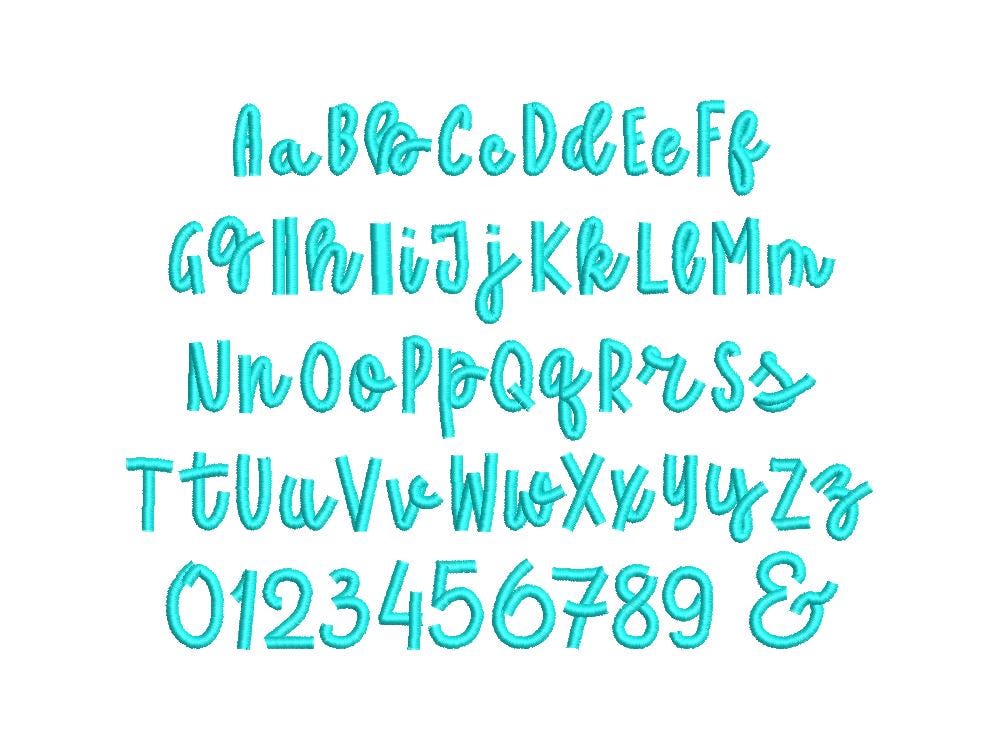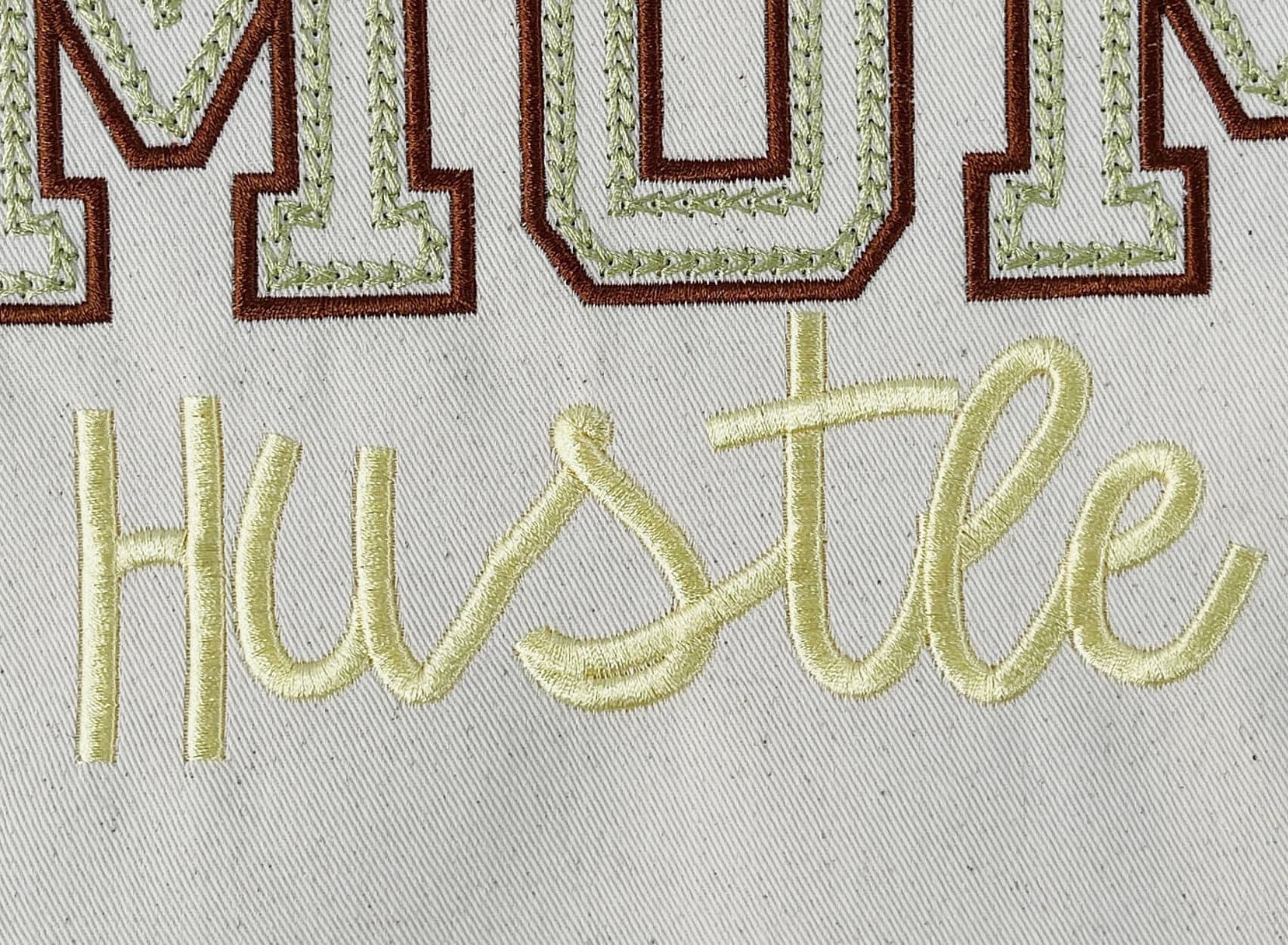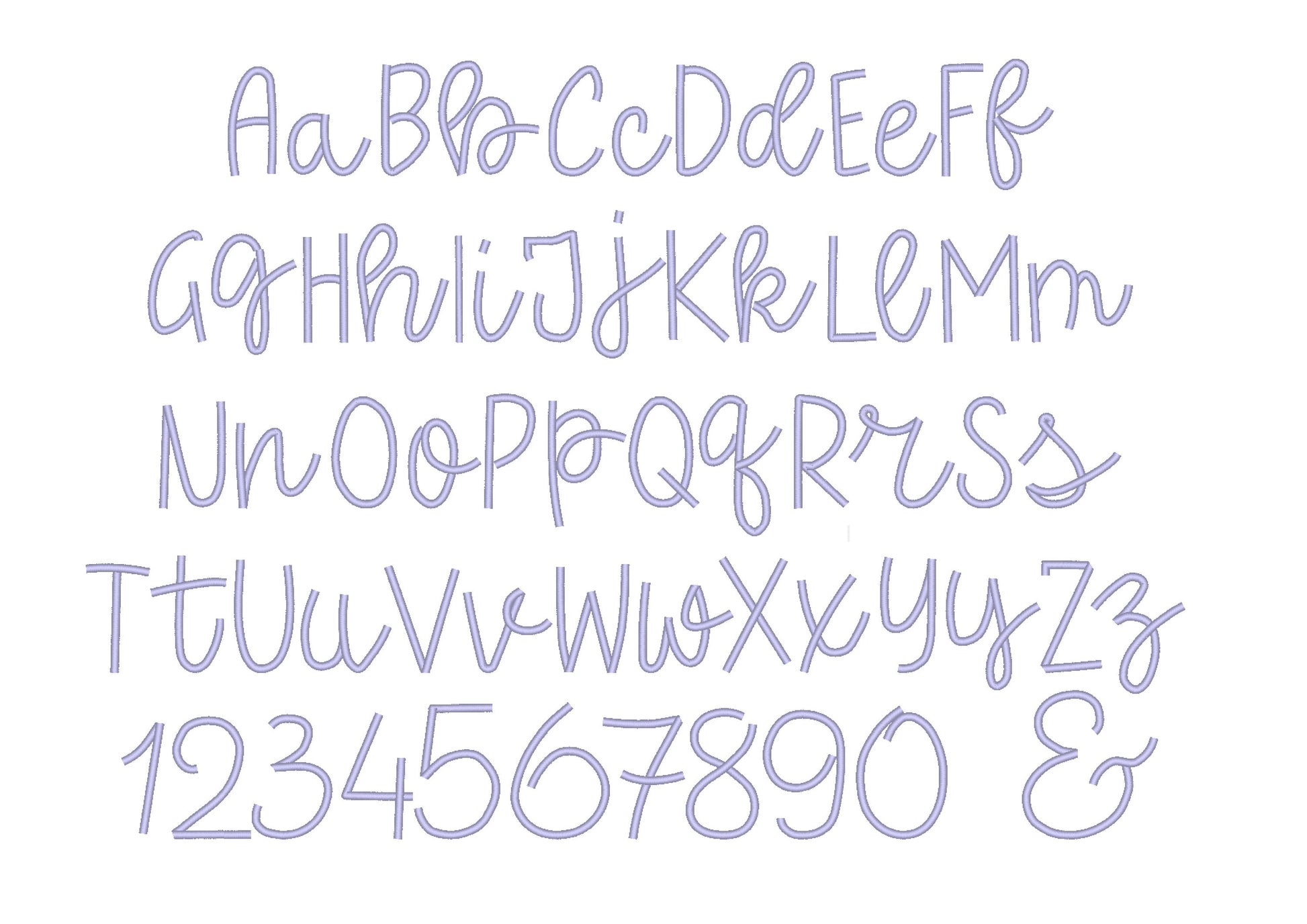
Satin Stitch Line Font
Included: Uppercase A-Z, Lowercase a-z, Numbers 0-9, Punctuation
A thin satin line script in mini sizes. Sweet for kids' names, necklines, bibs and small gifts.
Uppercase and lowercase letters, numbers 0 to 9 and an ampersand. Nine sizes: 0.7, 0.9, 1.2, 1.5, 1.8, 2.2, 2.7, 3.2 and 3.8 inches.
• Satin line script font
• Uppercase, lowercase, numbers 0 to 9, ampersand
• 9 sizes, 0.7 to 3.8 in